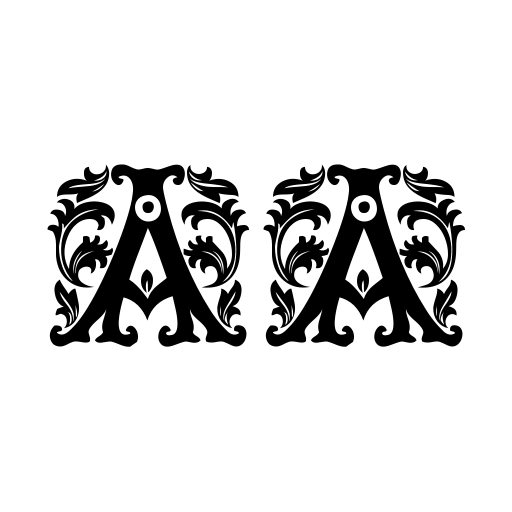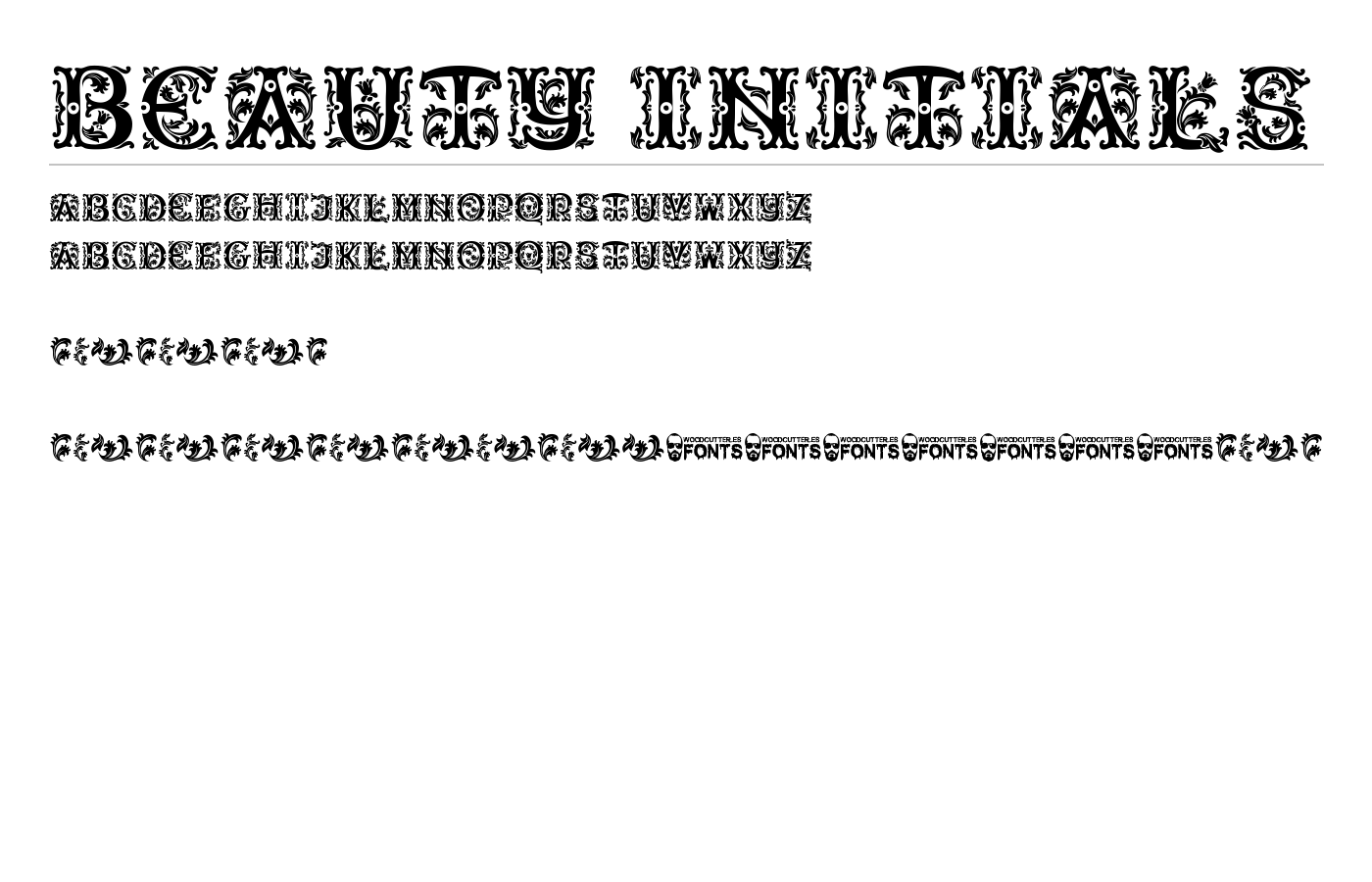
Beauty Initials is an ornamental serif font characterized by its intricate floral and vine-like details, creating a vintage, decorative look. Its bold weight and high contrast give it a strong presence, making it perfect for decorative initials, logos, and display purposes where a dramatic, elegant style is desired. This font works best in designs that need a touch of classic beauty and sophistication, such as fashion branding, invitations, or artistic posters.
Beauty Initials Font
About Beauty Initials Font